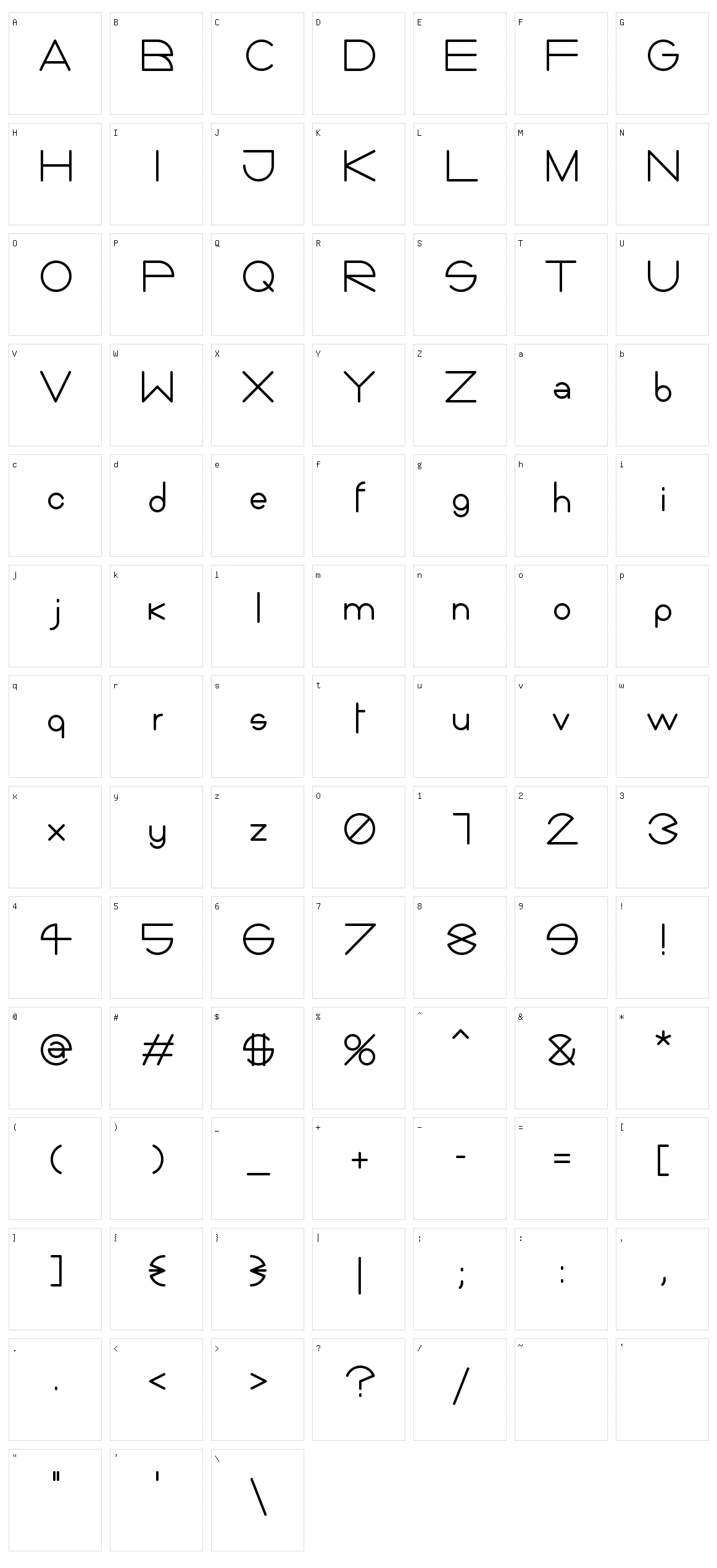
GIORGINO True Type Font
NOTES
I made this font for my second-born son, Giorgio.
[you can see Giorgio pressing "ç" key, while using Giorgino
font, of course]